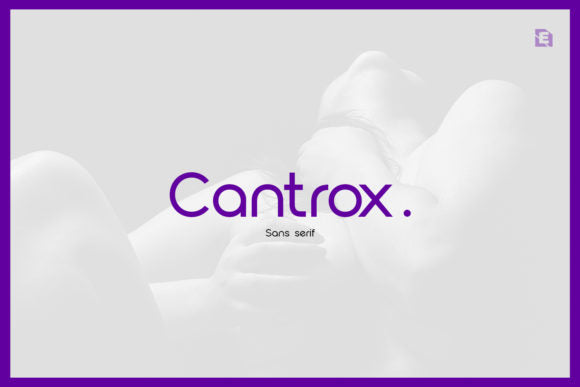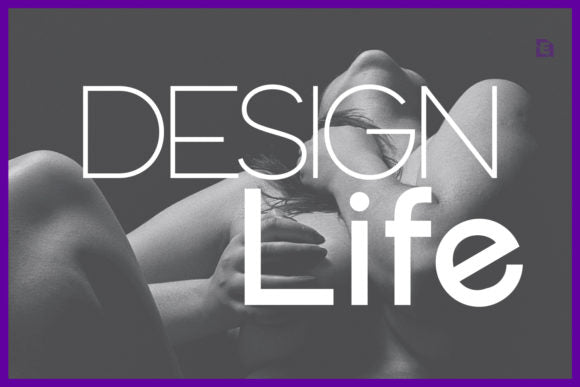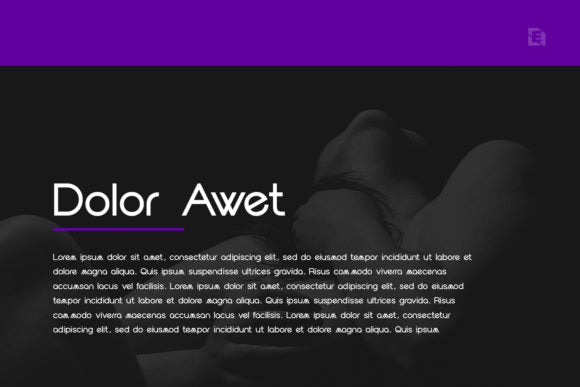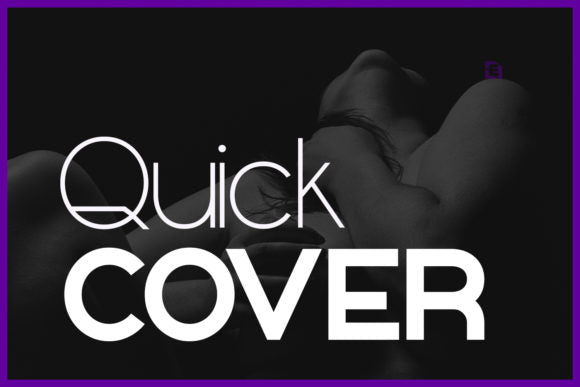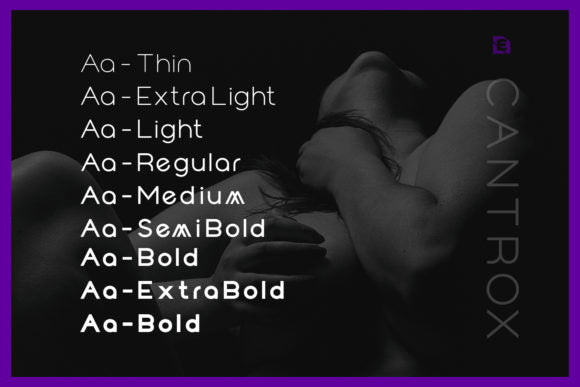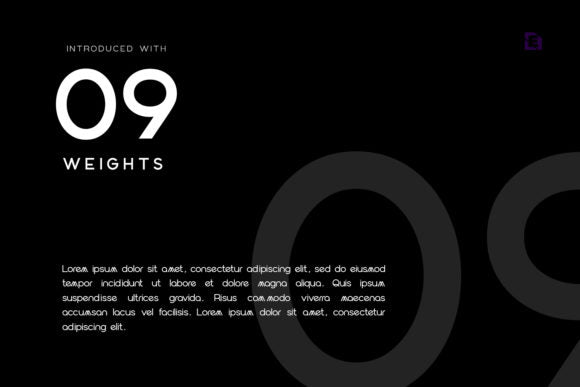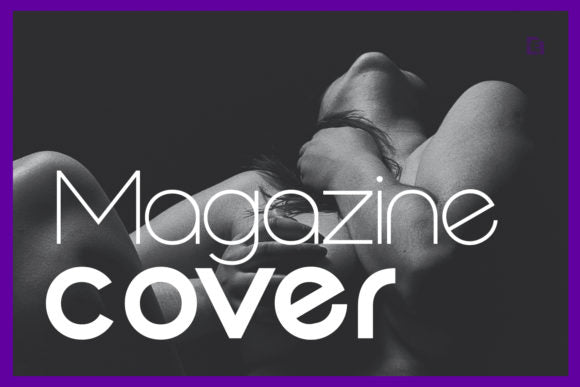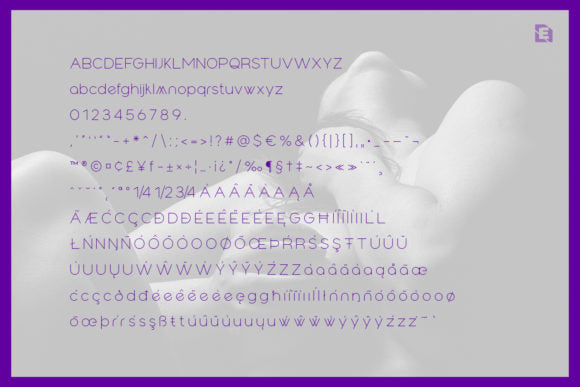
Cantrox Typeface
Cantrox is a modern geometric sans-serif font family designed for brands that demand elegance, versatility, and visual impact. Featuring clean curves, balanced proportions, and contemporary letterforms, Cantrox delivers a sophisticated look that performs beautifully across both print and digital applications.
With 9 carefully crafted weights, ranging from Thin to Extra Bold, Cantrox offers exceptional flexibility for designers, marketers, and creative professionals. Whether you're creating a luxury brand identity, magazine layout, website design, product packaging, or advertising campaign, Cantrox provides the perfect balance of style and functionality.
Its minimalist construction ensures excellent readability while maintaining a distinctive modern character, making it suitable for everything from bold headlines to refined body text.
Features
- Modern geometric sans-serif typeface
- Complete family with 9 weights
- Clean and elegant letterforms
- Excellent readability at all sizes
- Strong multilingual character support
- Professional and contemporary design
- Suitable for print and digital projects
Weights Included
- Thin
- Extra Light
- Light
- Regular
- Medium
- Semi Bold
- Bold
- Extra Bold
- Black
Why Choose Cantrox?
Cantrox combines modern aesthetics with practical versatility. Its extensive weight range allows designers to create powerful visual hierarchies while maintaining a consistent and professional appearance across every project.